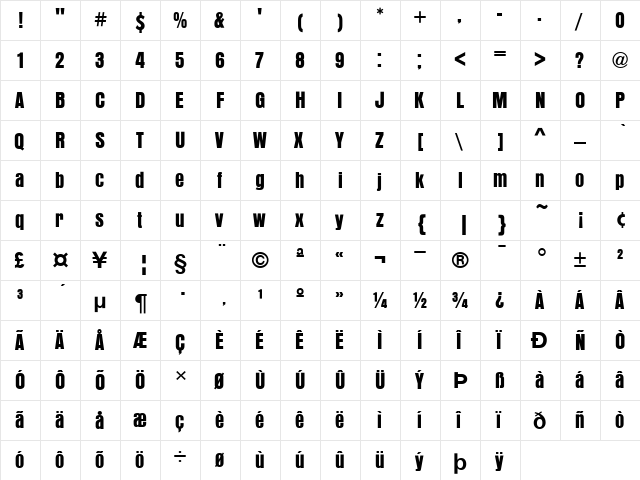
Anzeigen Grotesk D Regular Font Preview
Anzeigen Grotesk D Regular
Anzeigen Grotesk D Regular Font Details
Design Context for Anzeigen Grotesk D Typeface
Anzeigen Grotesk D takes a clean, functional approach — its unadorned letterforms prioritise legibility and work reliably across screen and print environments.
Font Pairing: Works well alongside a characterful serif or display font that can carry the expressive load while Anzeigen Grotesk D handles the functional copy.
Pro Tip: Use Anzeigen Grotesk D for UI labels, navigation, and short-form body copy where clean legibility is the priority.